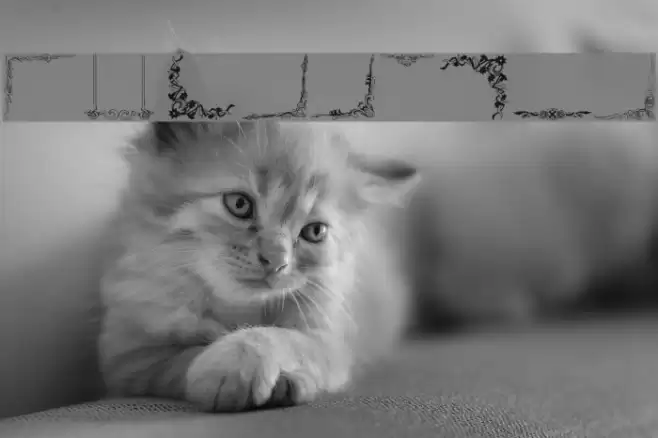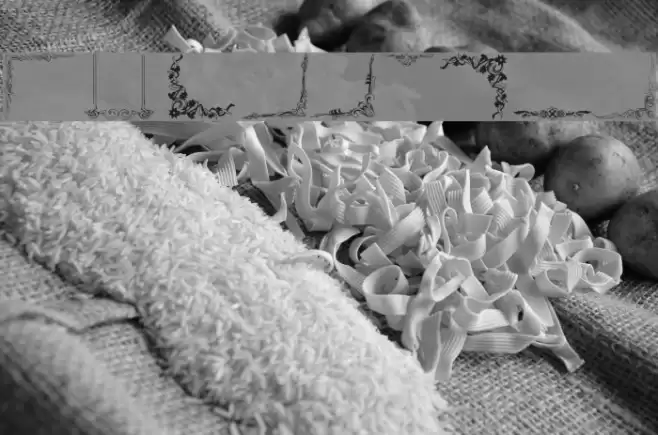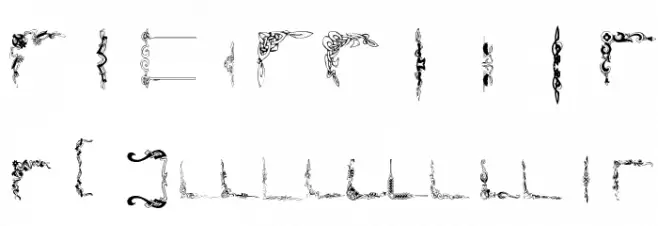
FramesAnd Font
FramesAnd Description
Highly decorative and ornate set of frame-like glyphs, each character formed from intricate flourishes and vintage embellishments, resembling Victorian or Art Nouveau border elements rather than traditional letterforms.
Ornate, decorative frames and borders with vintage flourishes from Uncategorized fonts.
- Proposed Projects: Invitations, certificates, decorative borders, vintage-themed posters, scrapbooking, ornamental dividers.
- Overall Style: Decorative, Vintage
- Use Case: Borders, Frames, Decorative accents